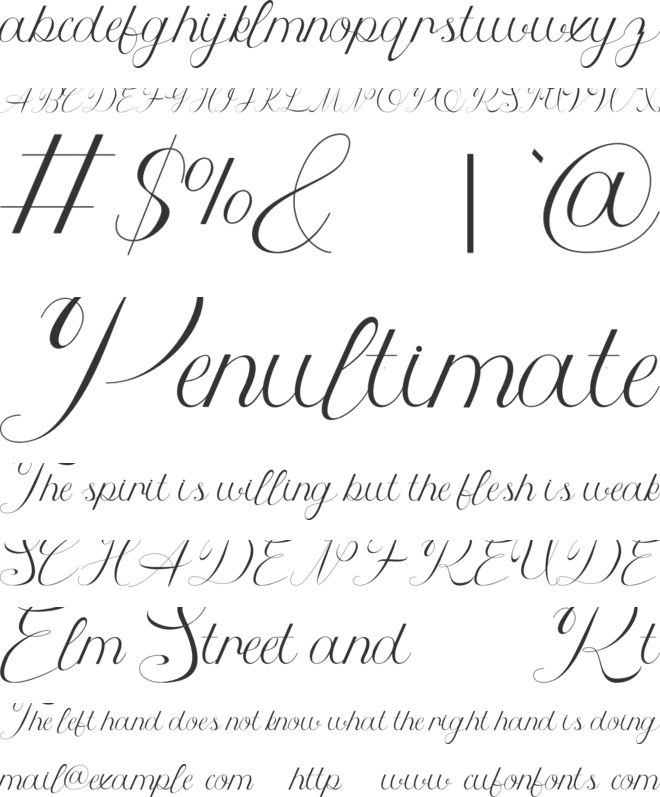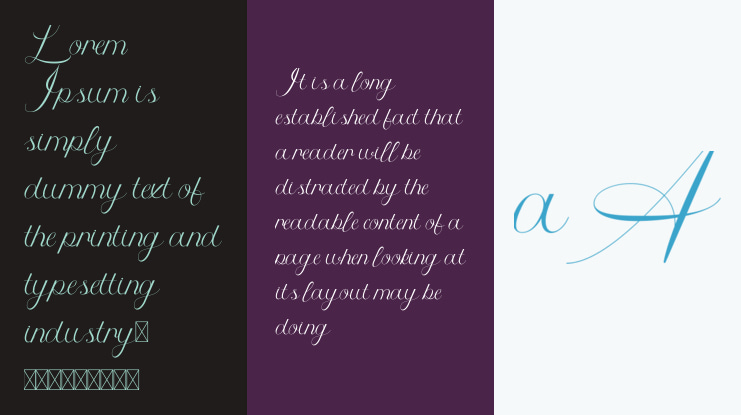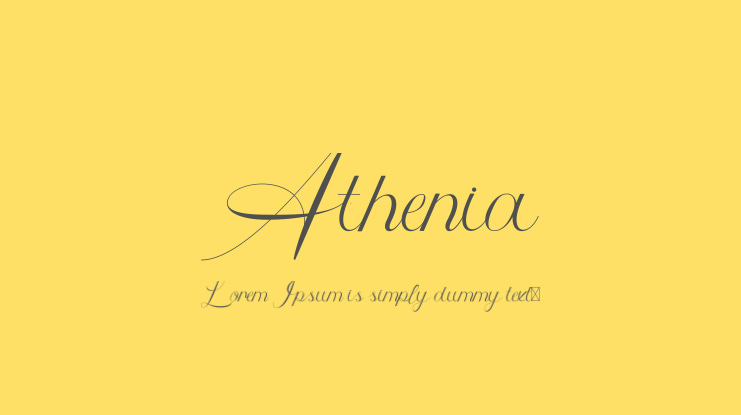
Athenia Font
Athenia is a modern calligraphy script font that comes with beautiful characters, a kind of classic decorative copper script with a modern touch, with high detail to bring stylish elegance and luxury.
Athenia is smooth, clean, feminine, sensual, glamorous, simple and very easy to read, because there are many fancy letter connections. The modern calligraphy style is perfect to be applied in various formal forms such as invitations, labels, restaurant menus, logos, fashion, make up, stationery, novels, magazines, books, greeting / wedding cards, packaging, labels or any type of advertising purpose.